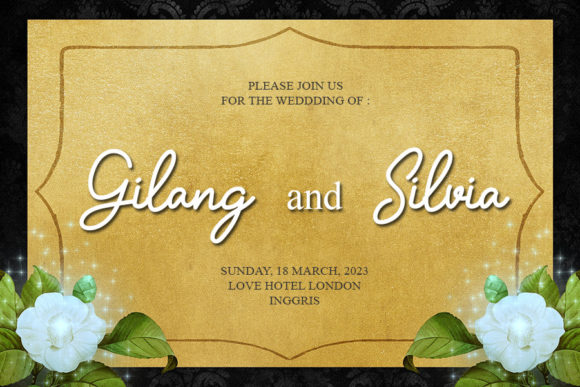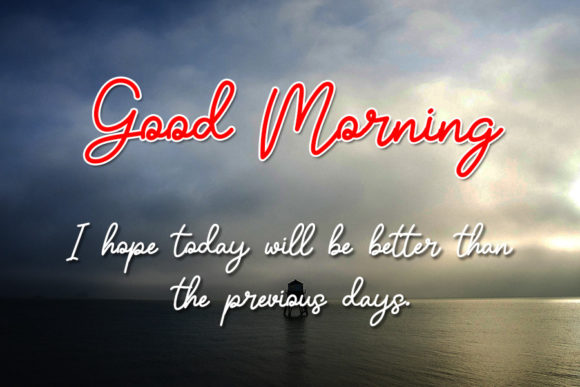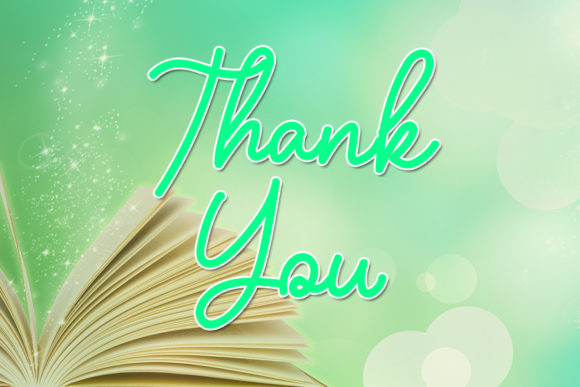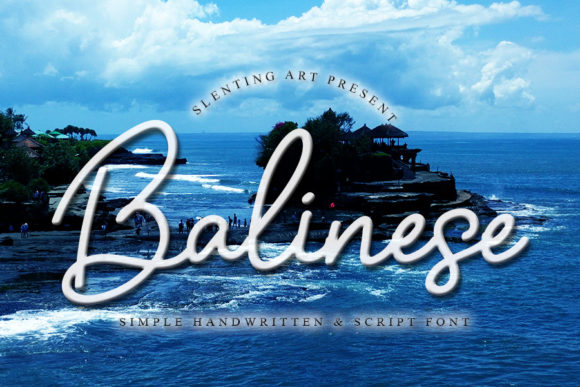
Introducing Balinese Font: A Sweet and Cursive Handwritten Delight
Are you a designer or crafter looking for a font that can add a touch of elegance and romance to your projects? Look no further than the Balinese font! This beautiful, cursive handwritten font is perfect for a variety of design ideas and is sure to bring a joyful and romantic feel to each of your creations.
What is Balinese Font?
Balinese font is a type of script font that features a sweet and cursive handwritten style. It is designed to mimic the look of handwriting, with flowing lines and gentle curves that give it a soft and romantic feel. The font is perfect for use in a variety of design projects, including wedding invitations, greeting cards, posters, and more.
Key Features of Balinese Font
So, what makes Balinese font so special? Here are just a few of its key features:
- Sweet and Cursive Handwritten Style: Balinese font features a beautiful, cursive handwritten style that is perfect for adding a touch of elegance and romance to your designs.
- Flowing Lines and Gentle Curves: The font’s flowing lines and gentle curves give it a soft and romantic feel that is sure to capture the hearts of your audience.
- Highly Versatile: Balinese font is highly versatile and can be used in a variety of design projects, from wedding invitations and greeting cards to posters and more.
- Easy to Read: Despite its cursive style, Balinese font is easy to read and understand, making it perfect for use in body text as well as headings.
Design Ideas Using Balinese Font
So, how can you use Balinese font in your designs? Here are just a few ideas to get you started:
- Wedding Invitations: Balinese font is perfect for use in wedding invitations, where its romantic and elegant style can help set the tone for a beautiful and memorable wedding.
- Greeting Cards: The font’s sweet and cursive style makes it perfect for use in greeting cards, where it can add a touch of warmth and personality to your message.
- Posters and Flyers: Balinese font can also be used in posters and flyers, where its bold and eye-catching style can help grab the attention of your audience.
- Branding and Packaging: The font’s elegant and sophisticated style makes it perfect for use in branding and packaging, where it can help add a touch of luxury and refinement to your products.
Tips for Using Balinese Font
Here are just a few tips for using Balinese font in your designs:
- Use it Sparingly: While Balinese font is beautiful and elegant, it can be overwhelming if used too much. Use it sparingly to add a touch of sophistication and refinement to your designs.
- Pair it with Other Fonts: Balinese font can be paired with other fonts to create a unique and eye-catching look. Try pairing it with a bold and modern font for a striking contrast.
- Experiment with Colors: The font’s elegant style can be enhanced with the right colors. Experiment with different colors and combinations to find the one that works best for your design.
In conclusion, Balinese font is a beautiful and elegant cursive handwritten font that is perfect for adding a touch of romance and sophistication to your designs. Its sweet and flowing style makes it highly versatile and easy to use, and its elegant and refined look makes it perfect for a variety of design projects. Whether you’re a designer or crafter, Balinese font is sure to become a favorite in your collection.